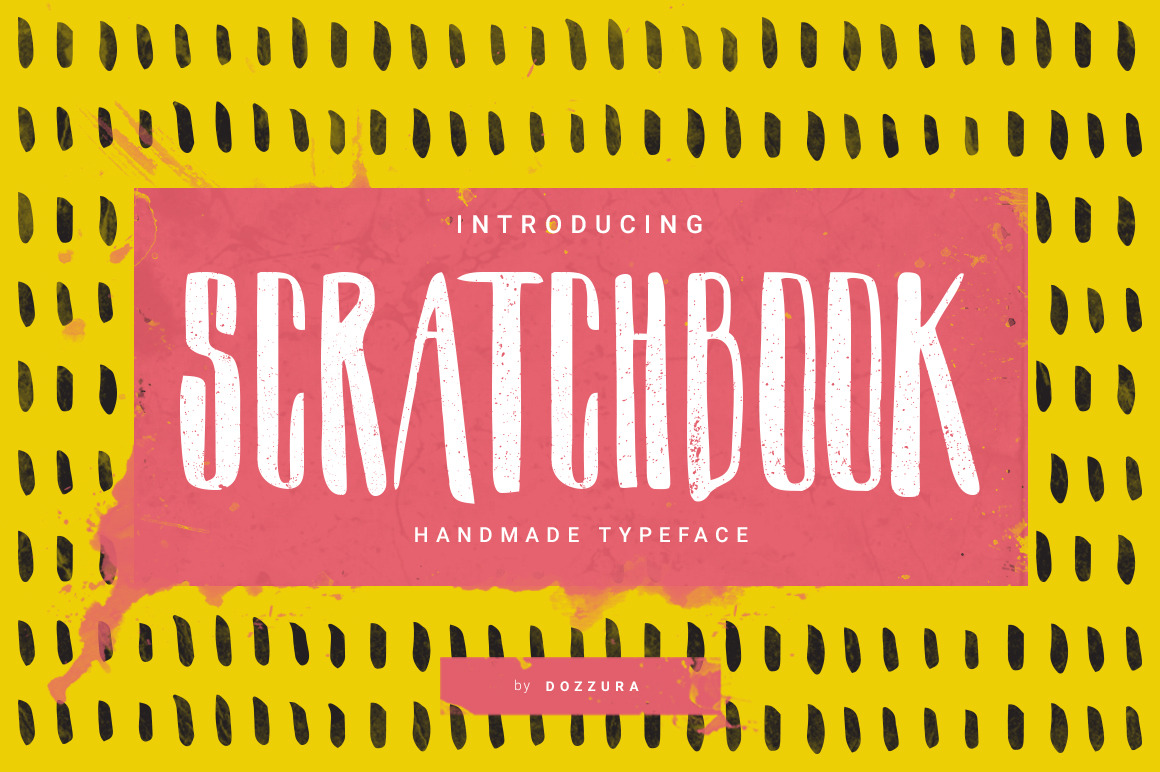
Scratchbook Typeface
Scratchbook typeface is a handbrush font includes 2 different styles that could be used in a variety of designs such as Logos, Greeting Cards, Stationery Design, Invitations, T-shirts, Apparel, Packaging designs, Posters, Typographic Design, and many more